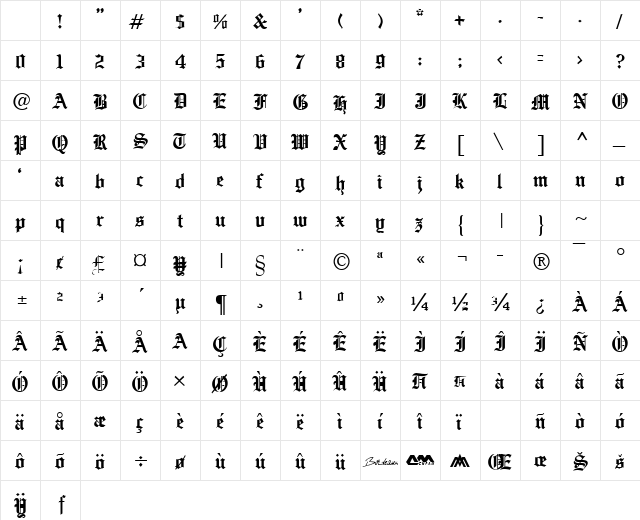
Complete Zagots Normal glyph index. Displaying only characters natively supported by Zagots Normal font.
Zagots is a composed and adaptable typeface that performs quietly and consistently across a wide range of design contexts.